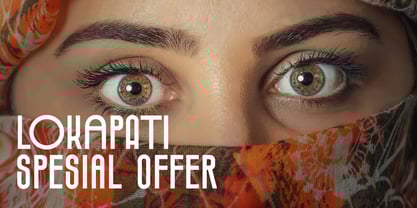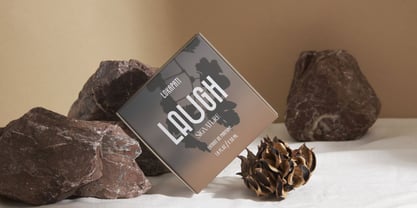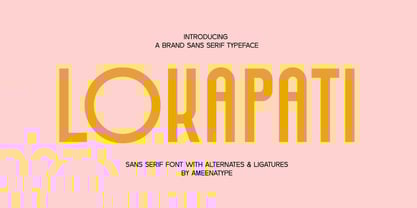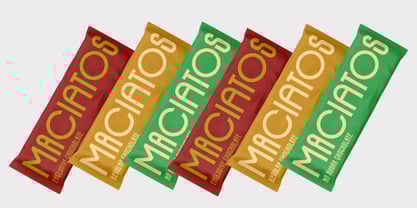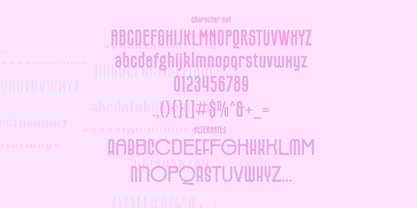
Lokapati Font
by Ameenatype
The Lokapati Font Font Family was designed by Syaiful Rizal Muhaimin and published by Ameenatype. Lokapati Font contains 1 styles. More about this family
Introducing LOKAPATI, a modern sans-serif font designed to bring an elegant and professional touch to your design projects. With its diverse character alternates and ligatures, LOKAPATI offers high flexibility for various design needs, from logos and branding to headlines and body text. Its clean and minimalist design ensures optimal readability across different sizes and media. Created by Ameenatype, LOKAPATI is the perfect choice for those seeking a versatile font with a contemporary aesthetic.
Designers: Syaiful Rizal Muhaimin
Foundry: Ameenatype